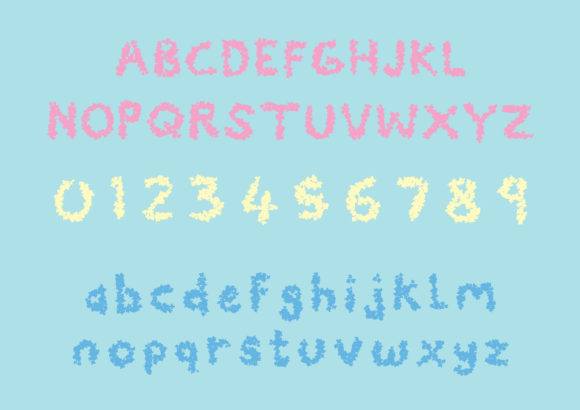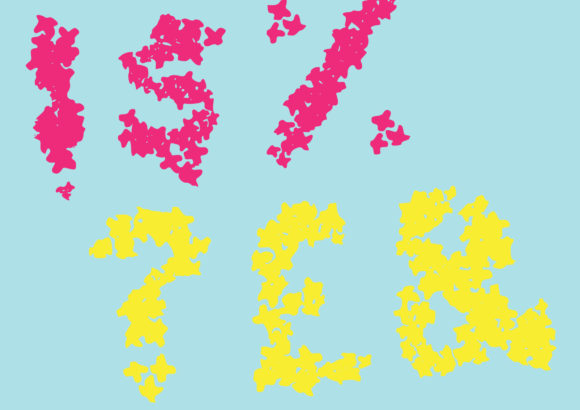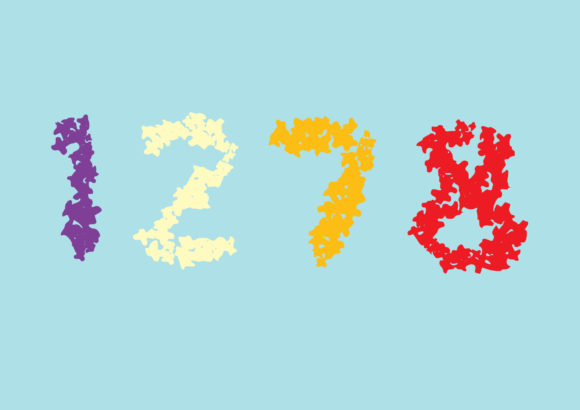
Unleash Your Creativity with Chalk Font
Have you ever been working on a project and suddenly felt the urge to add a personal touch that makes it truly special? Maybe you’re planning a baby shower and want to create a custom invitation that captures the excitement and joy of the occasion. Whatever your creative moment may be, you’re not alone!
For designers and crafty individuals alike, Chalk Font is a fun and playful display font that’s perfect for adding a whimsical touch to any project. Its unique look is designed to brighten up your creations and make them stand out from the crowd. Whether you’re working on a wedding invitation, a birthday card, or a DIY decoration, Chalk Font is a valuable asset to have in your design toolkit.
With Chalk Font, the possibilities are endless. Its versatility and ease of use make it a go-to choice for designers who want to add a touch of personality to their work. So why not give it a try and see what kind of creative magic you can create with this charming font?
Key Features of Chalk Font
- Font Family: Chalk Font is a sans-serif font family designed for digital use, with a unique, hand-drawn feel.
- Character Set: The font family includes a wide range of characters, including Latin, Greek, and Cyrillic scripts, as well as punctuation and symbols.
- Size and Resolution: Chalk Font is optimized for use at medium to large sizes (12-48 points), with a resolution of 300 DPI for high-quality rendering.
- Unique Characteristics: Chalk Font features a distinctive, hand-drawn aesthetic with subtle irregularities and imperfections, giving it a natural, organic feel.
Chalk Font Review
Overall, I found the Chalk Font to be a charming and unique addition to any design project. ✨ Its playful, handwritten feel makes it perfect for creating a whimsical or casual atmosphere.
The font’s high x-height and open counters create a sense of friendliness and approachability, which can be beneficial for designs aimed at a younger audience or those looking to convey a sense of playfulness. ✨ The font also comes in a range of weights, from light to bold, offering flexibility for designers to choose the perfect look for their project.
- Unique, handwritten feel
- Perfect for whimsical or casual designs
- High x-height and open counters create a friendly atmosphere
- Range of weights available
- May not be suitable for formal or professional designs
- Could be difficult to read in small sizes or at a distance
- Lack of consistency in letterforms may make it challenging to use for lengthy text
Overall, the Chalk Font is a great choice for designers looking to add a touch of personality to their projects. However, it’s essential to be mindful of the limitations and ensure it’s used in a way that suits its unique character.
The Chalk Font is ideal for creating a playful and informal atmosphere in designs such as:
- Summer camp posters
- Children’s party invitations
- Outdoor event promotions
- Pair it with bright and bold colors to create a fun and energetic vibe.
- Use it in conjunction with distressed textures or backgrounds to add depth and interest.
- Experiment with different font sizes and styles to create visual hierarchy and emphasis.
Alternatives to Chalk Font
Great Vibes is a modern, elegant script font that is perfect for creating a friendly and approachable atmosphere. It is ideal for use in branding, packaging, and advertising materials. Great Vibes has a more refined and sophisticated look compared to Chalk Font, which makes it suitable for more formal designs.
Pacifico is a beautiful, cursive script font that is reminiscent of handwriting. It is perfect for use in designs that require a sense of relaxation and tranquility, such as in spa or wellness branding. Pacifico has a more flowing and organic look compared to Chalk Font, which makes it suitable for designs that require a sense of movement and fluidity.